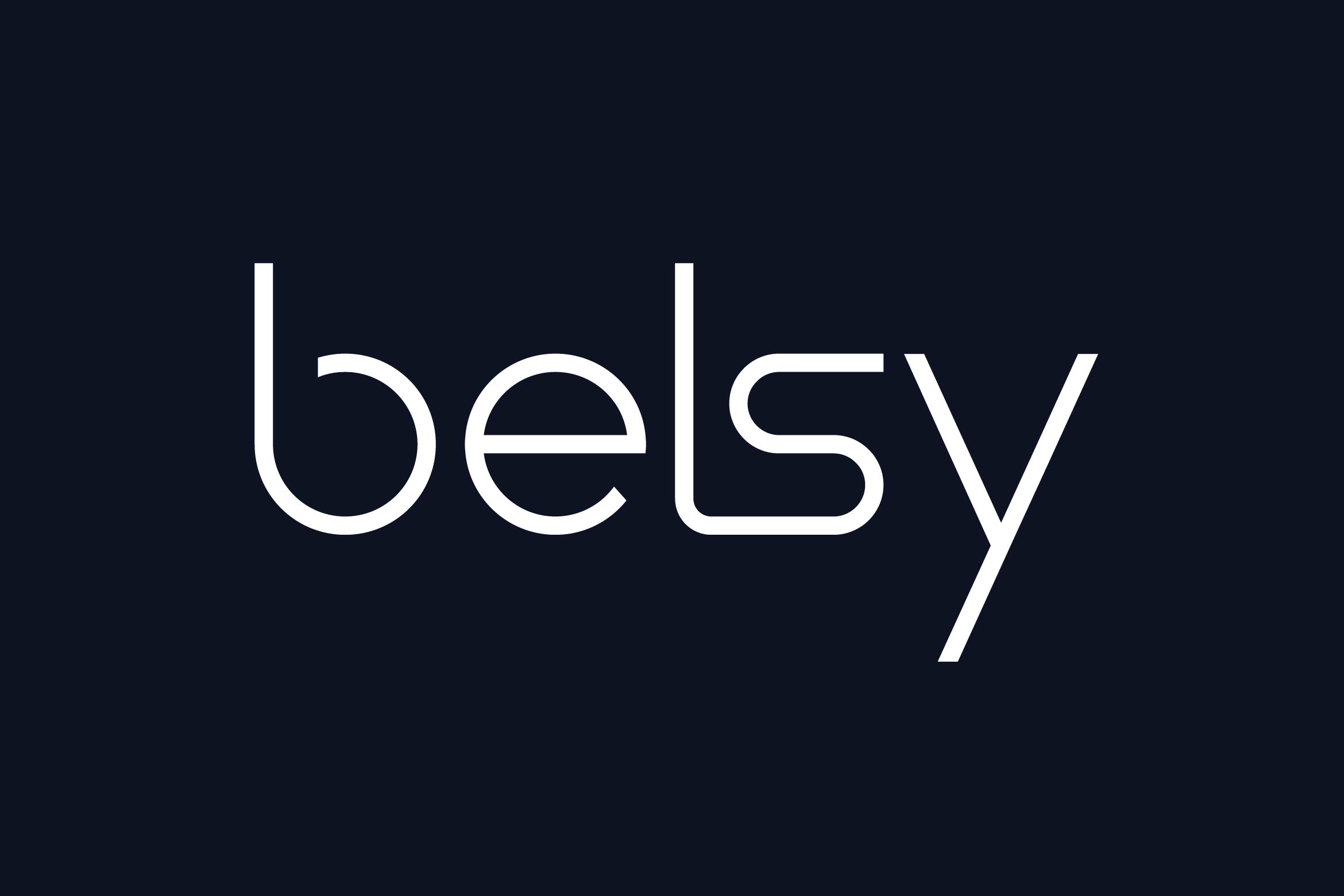
- Belsy Minimalist Sans Serif Font
Belsy is a clean and refined sans serif font designed to embody simplicity and contemporary sophistication. Featuring smooth curves, balanced spacing, and geometric precision, Belsy delivers a timeless look that works perfectly for branding, editorial layouts, packaging, website design, and social media graphics.
Its minimalist character ensures excellent readability while adding a touch of elegance, making it suitable for both bold headlines and subtle text applications. Belsy adapts seamlessly across various industries, including fashion, lifestyle, tech, and creative projects.
The font includes uppercase and lowercase letters, numerals, punctuation, multilingual support, and stylistic alternates for added flexibility and design freedom.
Bring a modern and polished touch to your typography with Belsy — the minimalist sans serif that defines clean aesthetics and timeless style.